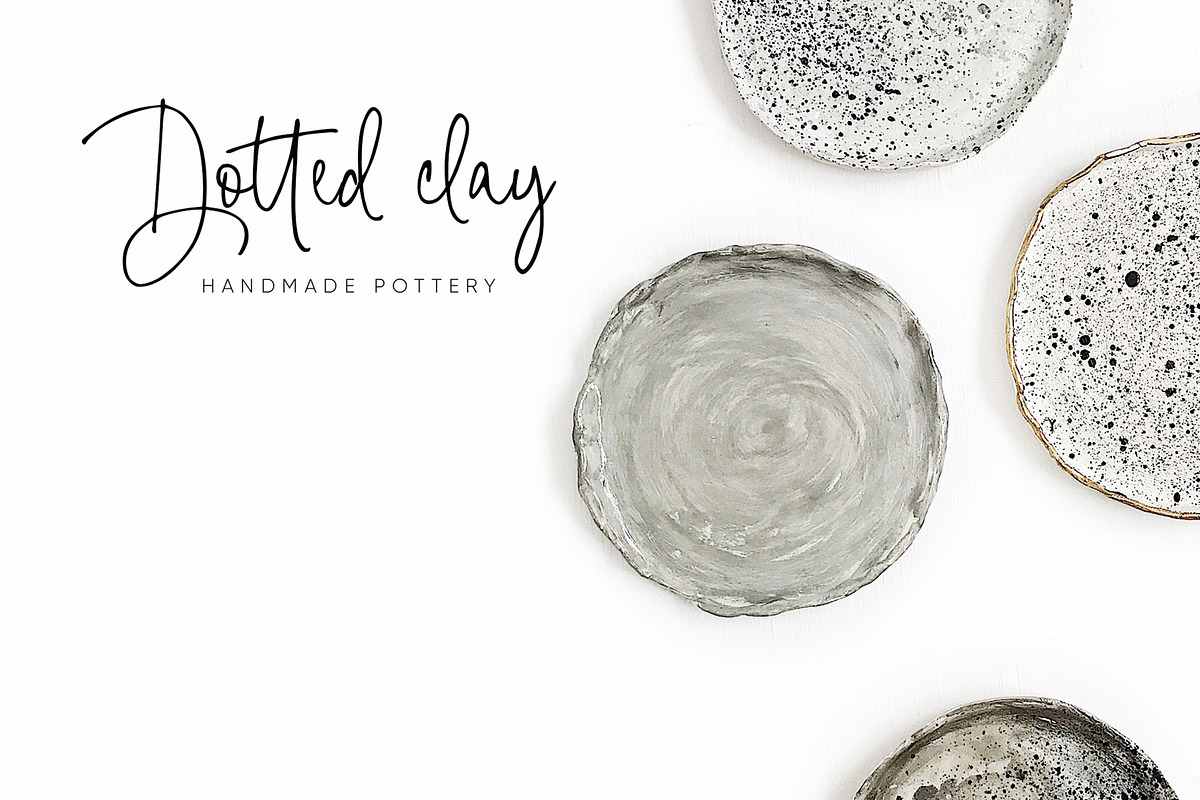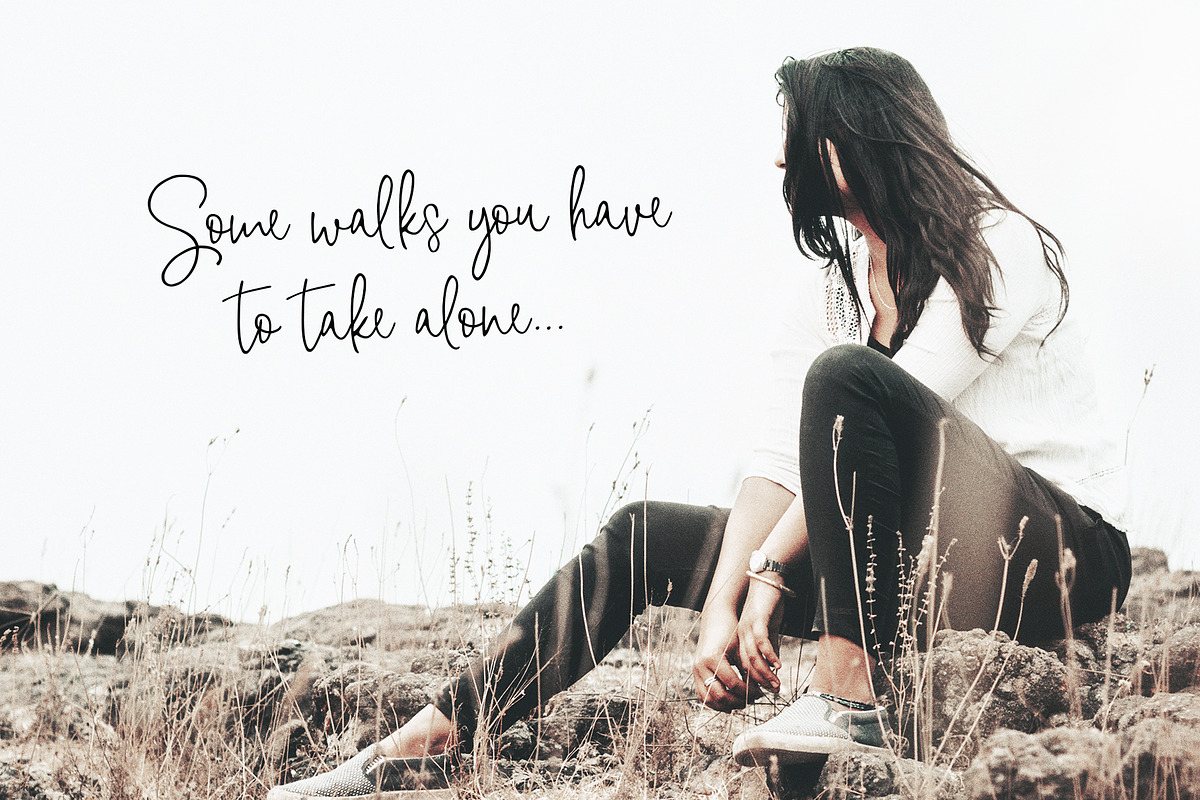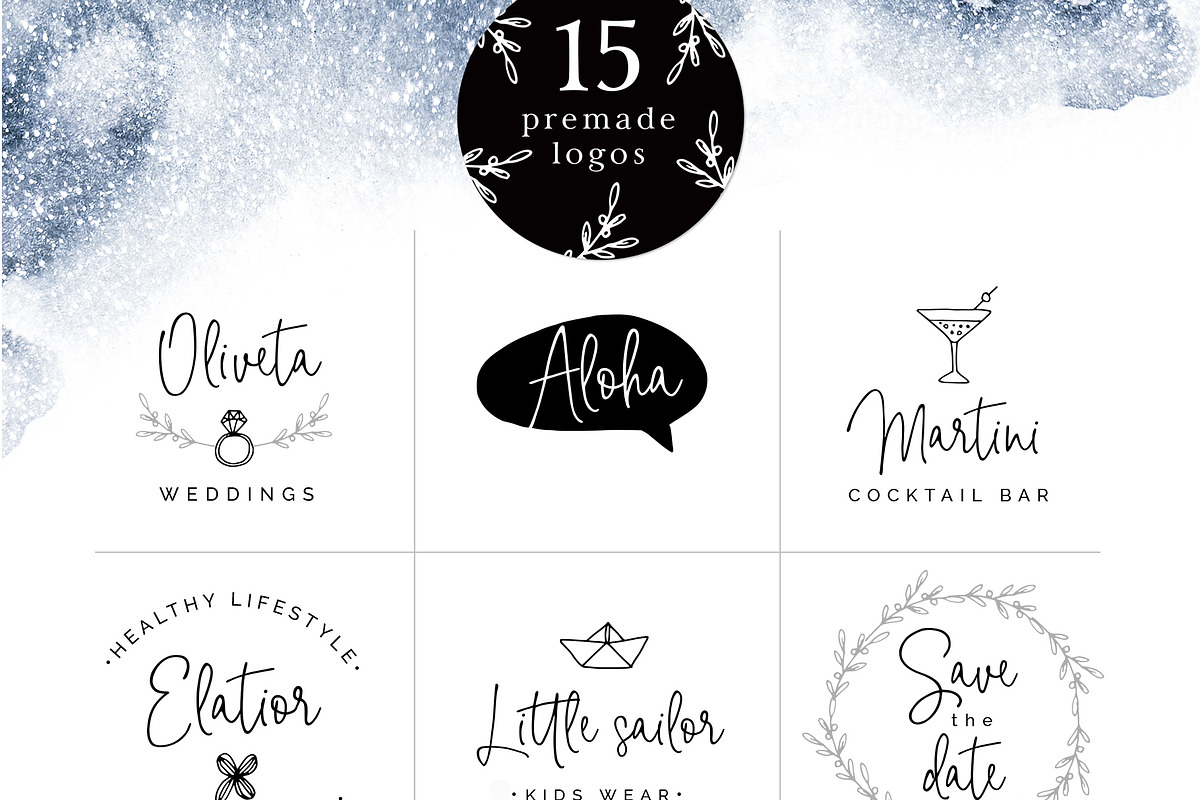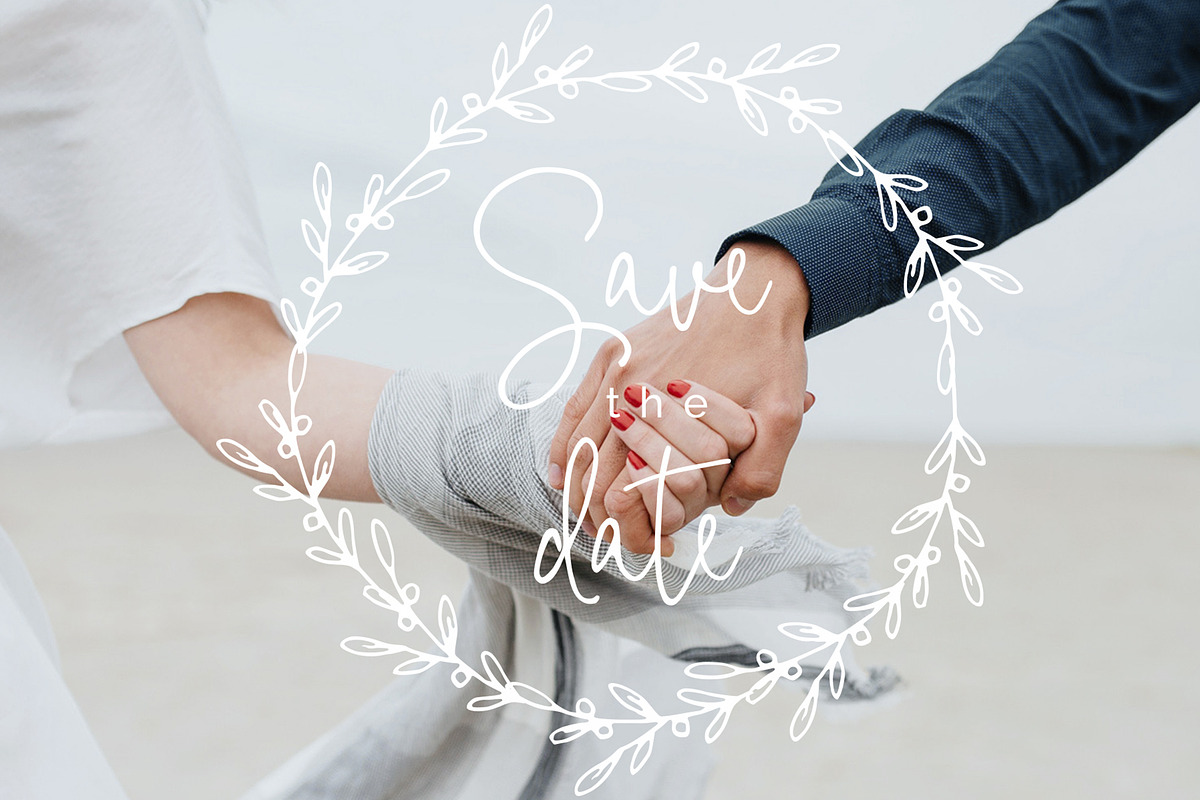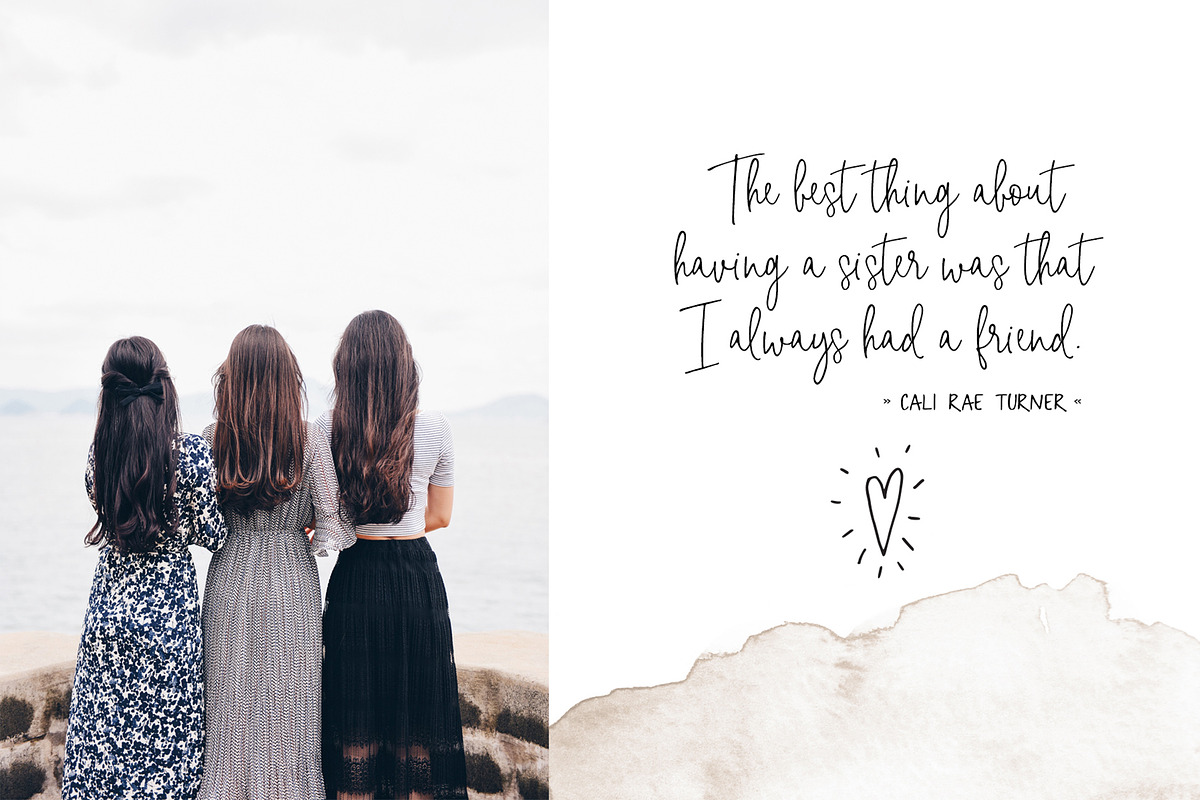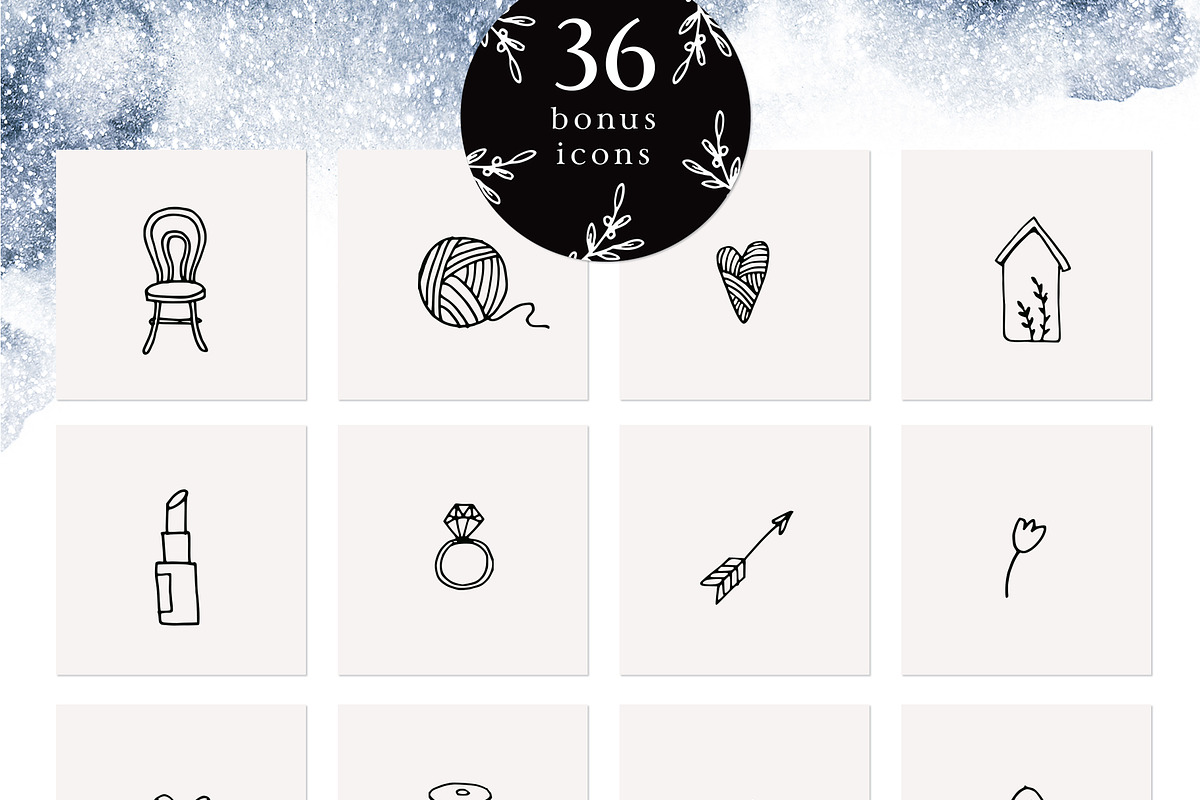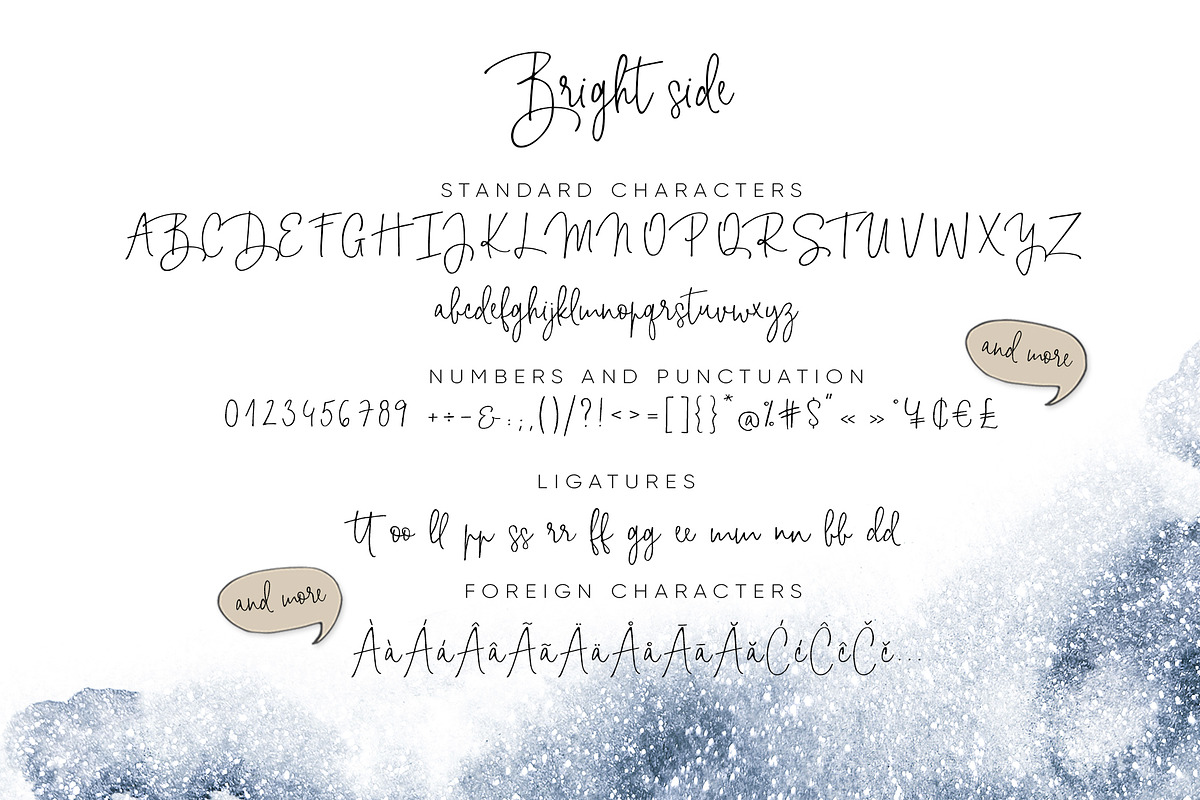
Bright Side script font & logos
Let me introduce the Bright Side collection - a modern monoline signature script font with a bunch pre-designed logos and doodle vector illustrations.
The set contain 51 BONUS elements.
36 floral and feminine doodles – just combine the graphic objects, that you like, with your text - the possibilities and variations are endless. Or you can use the fully editable 15 pre-made logo templates.
With Bright Side pack you can create your own logo, greeting cards, invitations or decorate your gifts, crafts, blog or website in a minute! The font includes standard characters, lowercase, uppercase, numbers, punctuation, ligatures and a lot of international characters (please see the glyph chart).